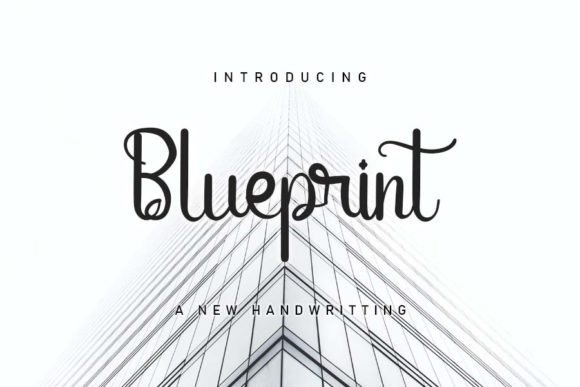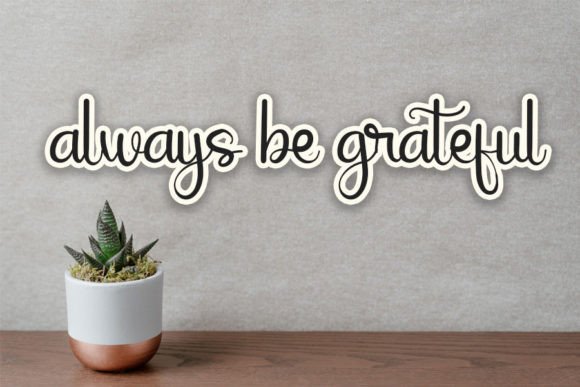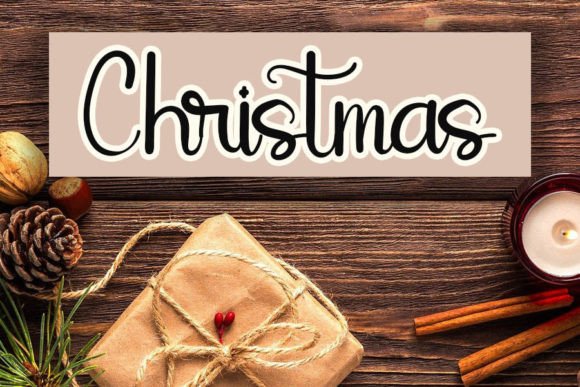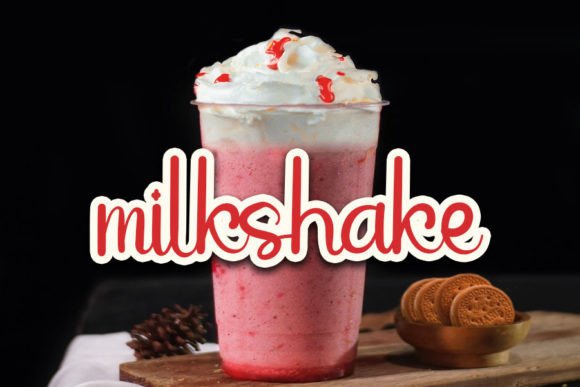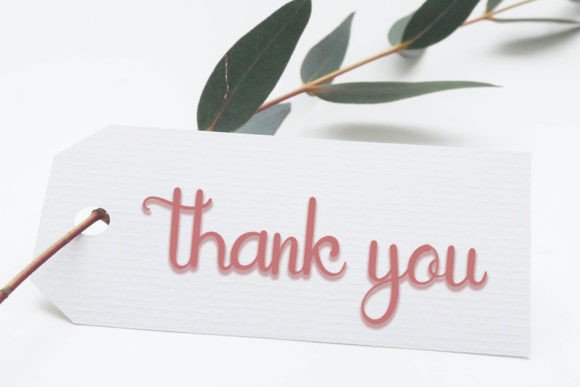
Blueprint Font
Blueprint Handwritten Font – Sweet and Cursive Script
The Blueprint Handwritten Font is a beautiful and elegant script typeface created to bring charm and warmth to your designs. With its sweet cursive strokes and delicate flow, it enhances a wide range of creative projects. Whether you’re designing invitations, greeting cards, or posters, this font adds romance and sophistication to every piece.
A Script with Romantic Appeal
The Blueprint Handwritten Font combines natural handwritten curves with graceful cursive details. Its balanced strokes create a gentle and joyful look, while its readability ensures it works in both print and digital applications. Because of this, it adapts seamlessly to professional and personal projects.
One of the most common uses of the Blueprint Handwritten Font is in invitations and greeting cards. Wedding stationery, birthday cards, and holiday greetings gain a more personal and romantic style when designed with this font. At the same time, it shines in posters, business cards, and logos, where a handwritten touch adds originality and elegance.
The Blueprint Handwritten Font adapts beautifully across different design contexts. From product packaging and social media graphics to decorative quotes and branding materials, it provides a sweet handwritten style that feels timeless and appealing. Its versatility ensures it becomes a valuable addition to any designer’s toolkit.
Why Designers Love Blueprint Font
Designers love the Blueprint Handwritten Font because it combines romance with usability. Its cursive strokes bring warmth to projects, while its clarity ensures professional results. This balance of charm and function makes it a favorite among creative professionals.
In summary, the Blueprint HandwrittenFont is a sweet, cursive, and versatile script typeface. With its delicate handwritten flow, quick installation, and broad usability, it is perfect for invitations, greeting cards, posters, and logos. Don’t miss the chance to download Blueprint HandwrittenFont and bring a joyful handwritten charm to your next creative project.